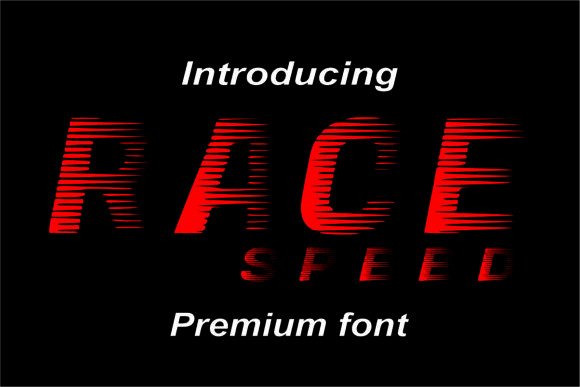
Race Speed: The Font That Captures the Spirit of Velocity
In a world where visual identity plays a crucial role in branding and design, the right font can make all the difference. Race Speed is more than just a typeface—it’s a symbol of power, speed, and motion. Designed with a racing aesthetic, this display font is ideal for projects that demand energy, urgency, and a strong visual presence. Whether you're creating a logo for a motorsport brand, designing a t-shirt for a car enthusiast, or crafting a poster for a high-octane event, Race Speed delivers the impact needed to stand out.
As digital and physical spaces become increasingly competitive, the need for distinctive and memorable visuals has never been greater. Fonts like Race Speed help brands and creators communicate their message with clarity and flair. In an era where attention spans are short and competition is fierce, a well-chosen font can be the key to capturing and retaining audience interest.
The Evolution of Racing-Themed Design
Racing-themed design has evolved significantly over the years, moving beyond traditional automotive graphics to encompass a wide range of creative expressions. From sports logos to fashion labels, the visual language of speed and performance has found its way into various industries. This shift reflects broader cultural trends, where consumers seek bold, dynamic, and emotionally resonant designs.
Modern audiences are drawn to fonts that convey movement and intensity. Race Speed fits perfectly into this trend, offering a sleek, aggressive look that speaks to the desire for innovation and excitement. Its clean lines and sharp angles mirror the aesthetics of high-performance vehicles, making it a versatile choice for designers looking to evoke a sense of speed and power.
Moreover, the rise of social media and digital marketing has increased the demand for eye-catching visuals. Brands and individuals alike are turning to fonts like Race Speed to create content that stands out in crowded feeds and platforms. Whether used in a headline, a banner, or a social media post, this font adds a layer of energy that can enhance engagement and memorability.
Practical Applications of Race Speed
One of the most appealing aspects of Race Speed is its versatility. It works well across a variety of mediums, from print to digital, and can be adapted to suit different design needs. For example, a racing team might use it for their logo, while a designer could incorporate it into a poster for a car show or a promotional flyer for a speed-related event.
For businesses in the automotive, fitness, or entertainment industries, Race Speed offers a way to align their visual identity with the values of speed, strength, and performance. It can also be used in branding for tech startups, gaming companies, or any organization that wants to project a sense of momentum and progress.
On a personal level, hobbyists and creatives can leverage Race Speed to add a unique touch to their projects. Whether it's a custom t-shirt, a DIY sign, or a digital artwork, this font provides a professional edge that elevates the overall quality of the design. Its bold appearance makes it particularly effective for headlines, titles, and other prominent text elements.
Why Race Speed Stands Out
What sets Race Speed apart from other fonts is its ability to balance style with functionality. Unlike some display fonts that may be too ornate or difficult to read, Race Speed maintains a level of legibility that allows it to be used in a wide range of contexts. This makes it a practical choice for both casual and professional applications.
Additionally, the font’s association with racing and performance gives it a strong emotional appeal. It taps into the universal fascination with speed and motion, which can resonate with a broad audience. This emotional connection can be especially valuable for brands looking to build a loyal following or connect with niche markets.
Another factor contributing to Race Speed’s relevance is its adaptability. It can be paired with other fonts to create a balanced and cohesive design, or used on its own to make a bold statement. This flexibility ensures that it remains useful across different design projects and industries.
Trends Shaping the Future of Design
As design trends continue to evolve, the demand for fonts that reflect modern values and aesthetics is growing. Consumers are increasingly drawn to visuals that feel authentic, dynamic, and meaningful. Race Speed aligns with these preferences by offering a font that not only looks powerful but also communicates a clear message of speed and energy.
Furthermore, the shift toward minimalism and simplicity in many design fields has created a space for fonts like Race Speed to thrive. While minimalist designs often rely on clean lines and negative space, there is still a place for bold, expressive typefaces that add personality and depth. Race Speed fills this gap by providing a striking alternative to more subdued fonts.
Looking ahead, the integration of technology into design workflows is likely to influence how fonts are used and perceived. As tools for graphic design become more accessible, more people will have the opportunity to experiment with fonts like Race Speed. This democratization of design can lead to new and innovative uses of the font, further expanding its reach and impact.
Recommendations for Using Race Speed
If you’re considering using Race Speed in your design projects, there are a few key considerations to keep in mind. First, ensure that the font is appropriate for the context in which it will be used. While it excels in high-energy environments, it may not be the best choice for formal or traditional settings.
Second, pay attention to typography hierarchy. Race Speed works best when used as a headline or title, where its boldness can be fully appreciated. For body text, it’s advisable to pair it with a more readable font to maintain clarity and readability.
Finally, test the font in different sizes and formats to see how it performs in various applications. This will help you determine the best way to incorporate it into your design without compromising its visual impact.
By understanding the strengths and limitations of Race Speed, you can make informed decisions about how to use it effectively. Whether you’re a professional designer or a hobbyist, this font offers a powerful tool for expressing speed, energy, and motion in your work.